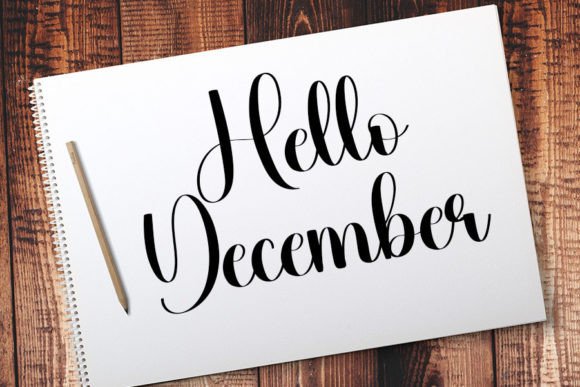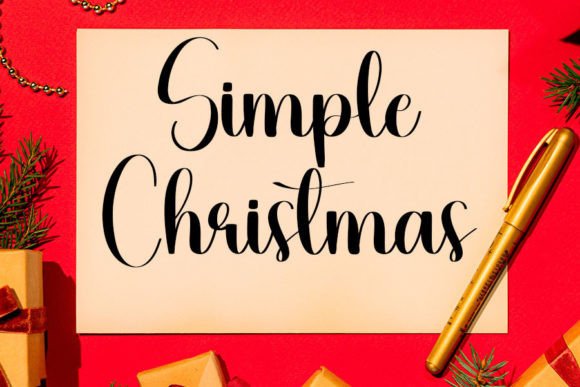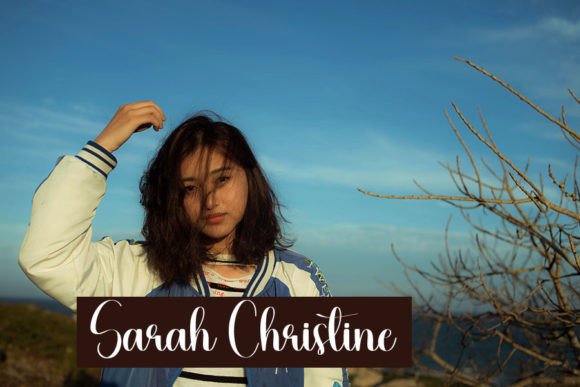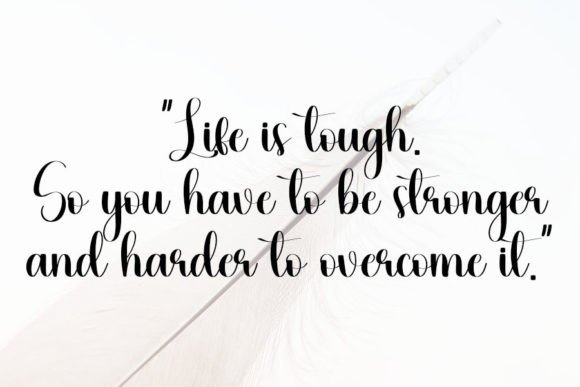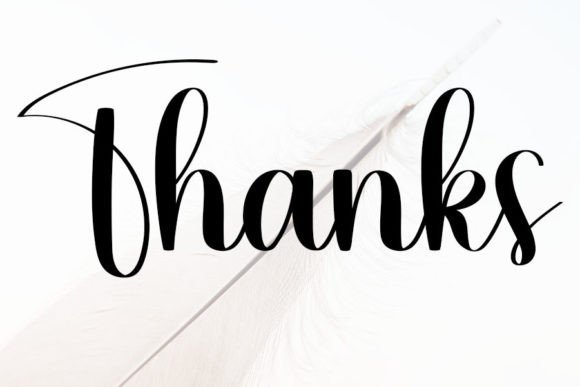
Bakery Font: Elevate Your Designs with a Touch of Timeless Elegance
In the world of typography, a well-crafted font can make all the difference in elevating your designs from ordinary to extraordinary. For designers and crafters seeking a stylish and contemporary handwritten font, Bakery Font is an exceptional choice. Inspired by timeless classic calligraphy, Bakery Font brings a touch of sophistication and elegance to any project.
The Inspiration Behind Bakery Font
Bakery Font is a masterful blend of traditional calligraphy and modern design principles. Its creator aimed to craft a font that would not only pay homage to the classic scripts of the past but also cater to the needs of contemporary designers. The result is a font that exudes a sense of refinement and poise, perfect for projects that demand a high level of sophistication.
Key Features of Bakery Font
Bakery Font boasts a range of features that make it an attractive choice for designers and crafters. Some of its key characteristics include:
- Contemporary atmosphere: Bakery Font has a fresh and modern feel that makes it perfect for designs that require a touch of elegance and sophistication.
- Impeccable form: The font’s precise and clean lines ensure that it remains legible and visually appealing, even at smaller sizes.
- Balanced and varied: Bakery Font offers a range of letterforms and ligatures, allowing designers to create unique and engaging text arrangements.
Use Cases for Bakery Font
Bakery Font’s versatility makes it suitable for a wide range of design applications. Here are some use cases where this font truly shines:
- Branding and logos: Bakery Font’s elegant and sophisticated feel makes it an excellent choice for logos and branding materials that require a touch of refinement.
- Wedding and event designs: The font’s classic and romantic feel makes it perfect for wedding invitations, programs, and other event materials.
- Packaging and product design: Bakery Font’s modern and sleek appearance makes it an excellent choice for packaging and product design projects that require a touch of sophistication.
- Digital and print media: The font’s legibility and versatility make it suitable for use in digital and print media, including magazines, blogs, and social media graphics.
Tips for Using Bakery Font Effectively
To get the most out of Bakery Font, here are some tips to keep in mind:
- Pair with complementary fonts: Combine Bakery Font with other fonts that complement its elegant and sophisticated feel.
- Experiment with font sizes and styles: Don’t be afraid to experiment with different font sizes and styles to create visual interest and hierarchy.
- Use ligatures and swashes: Take advantage of Bakery Font’s ligatures and swashes to add a touch of elegance and sophistication to your designs.
Bakery Font is a stylish and sophisticated handwritten font that offers a unique blend of classic elegance and modern flair. With its impeccable form, balanced and varied design, and contemporary atmosphere, this font is perfect for designers and crafters seeking to elevate their projects. Whether you’re working on branding and logos, wedding and event designs, packaging and product design, or digital and print media, Bakery Font is an excellent choice.
In conclusion, Bakery Font is a versatile and elegant font that can add a touch of timeless sophistication to any design project. Its unique blend of classic and modern elements makes it an attractive choice for designers and crafters seeking to create visually stunning and effective designs.